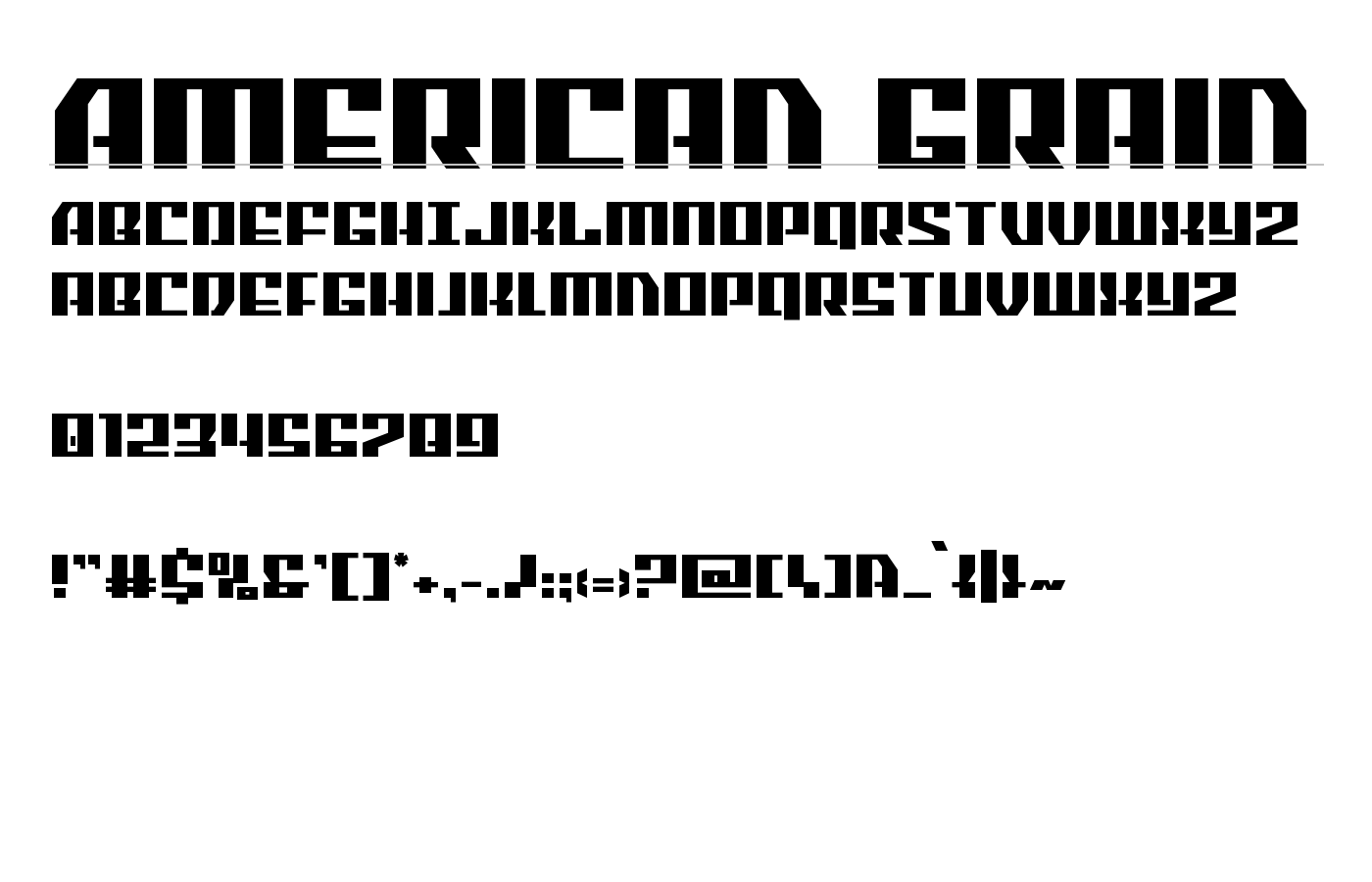
American Grain is a bold, geometric sans serif font with a strong industrial and futuristic vibe. Its blocky, angular letterforms and high contrast shapes make it perfect for striking headlines, logos, and display uses where a modern, edgy personality is desired. This font works especially well for branding or creative projects that want to stand out with a rugged yet tech-inspired style.
American Grain Font
About American Grain Font
| Font family | American Grain Font |